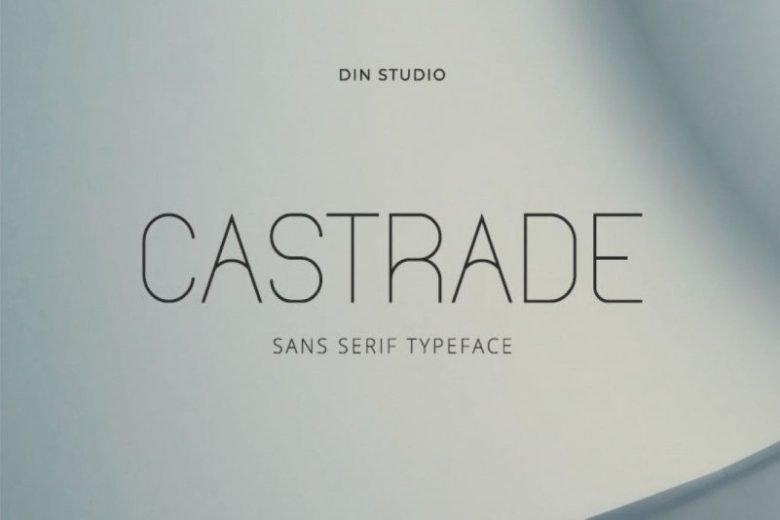
Castrade Sans Serif Font
Castrade Sans Serif Font is perfectly suited for eye-catching headlines. Its clean appearance and Light-weight makes it a wonderful selection for being paired with more decorative, elaborate subheading fonts. Castrade is designed and shared by sartstudio. This font is modern display sans font. Made for any professional project branding. Every letter has a unique and beautiful touch.
Castrade Sans Serif Font is suitable for Movie Posters, Titles, Block letters, Subheading, Logo Designs, Big Banner. Creative & decorative web typeface design.